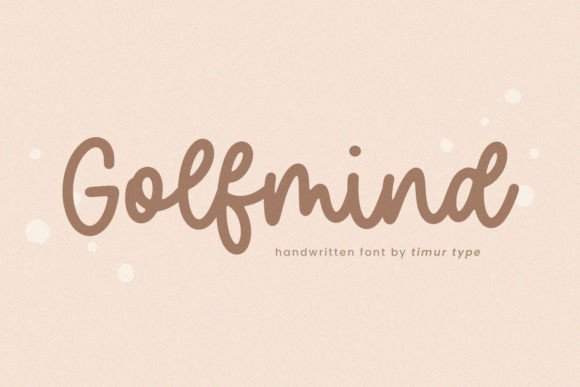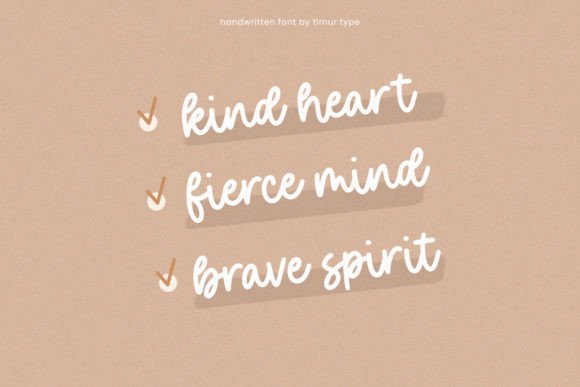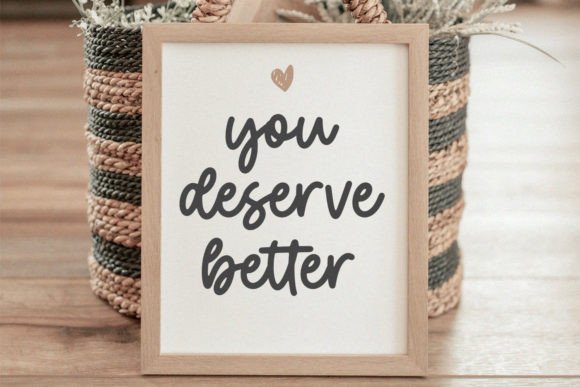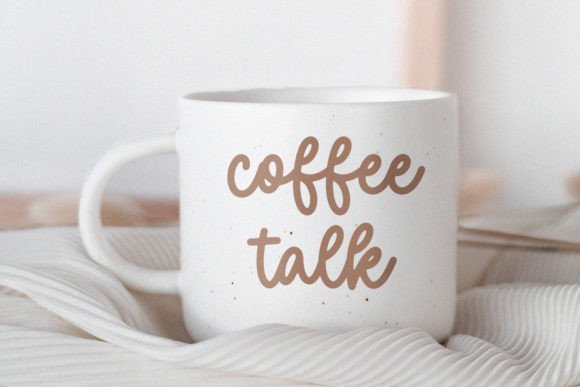
Golfmind Font: A Cute Handwritten Script for Branding & Social Media
About the Golfmind Font
Add a touch of class to your work with the Golfmind Font, a truly exceptional typeface. Golfmind is a handwritten font created with great care and specially created for you 😊
Golfmind is perfect for product packaging, branding project, magazines, social media, weddings, or just used to express words above the background.
Golfmind’s casual, handwritten style shines in headlines, short text blocks on branding materials, and social media posts. It works well for invitations and packaging where a personal touch is desired. However, its informal nature makes it less suitable for body text, lengthy paragraphs, or user interfaces requiring high readability.
The font’s overall personality is friendly and approachable, with a touch of playful charm. This makes it ideal for brands targeting a younger demographic or those seeking a more relaxed and approachable image.
Pairing Golfmind with a clean sans-serif like Open Sans for body copy provides a strong contrast and enhances readability. For a more sophisticated look, consider pairing it with a classic serif like Garamond for headings or supporting text that needs more formality.
Golfmind Font Usage Examples
Golfmind Font Example